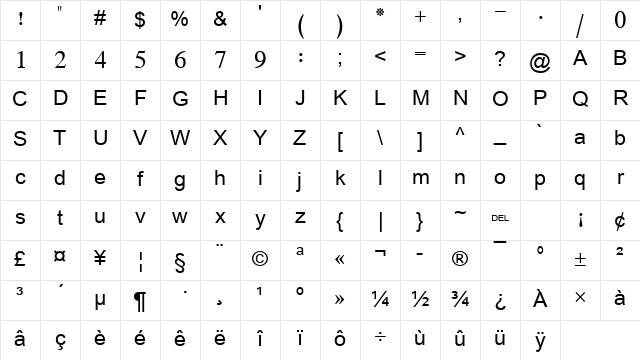
Arabic Transparent Regular
Arabic Transparent Family
Complete Arabic Transparent Regular glyph index. Displaying only characters natively supported by Arabic Transparent Regular font.
Design Context for Arabic Transparent
Arabic Transparent is a composed and adaptable typeface that performs quietly and consistently across a wide range of design contexts.